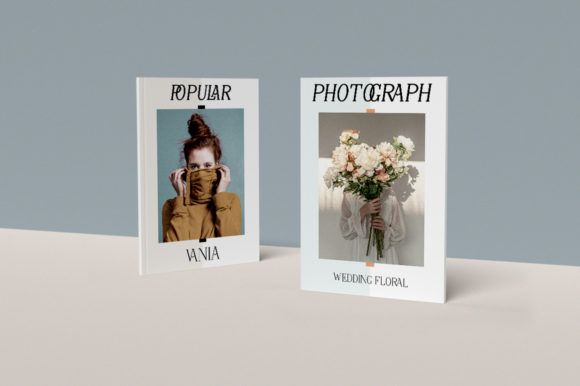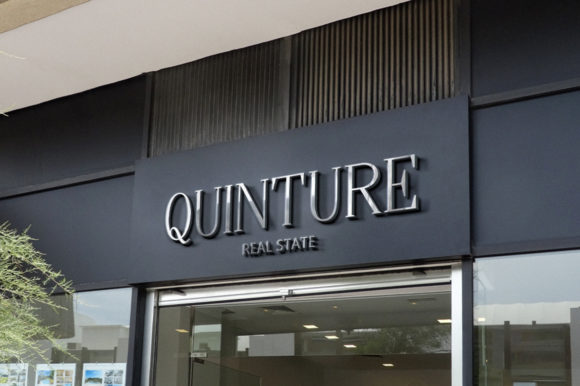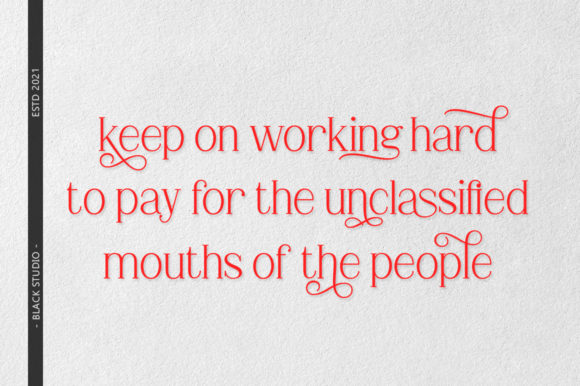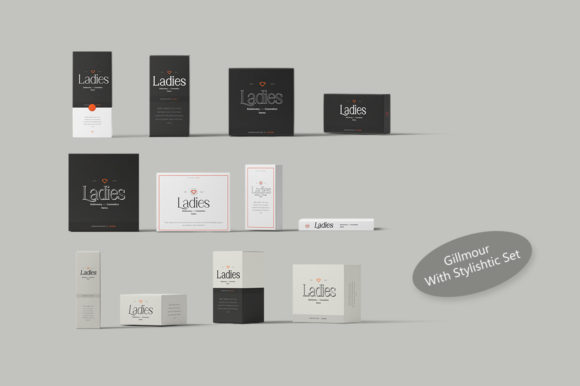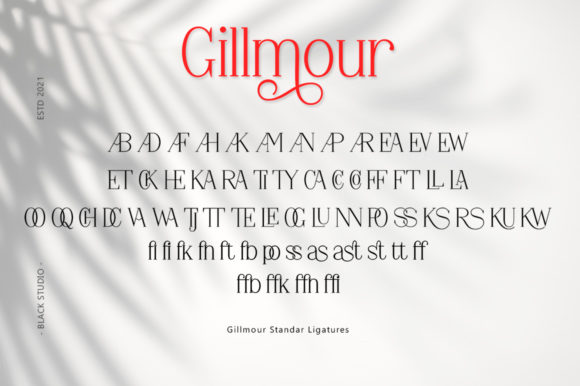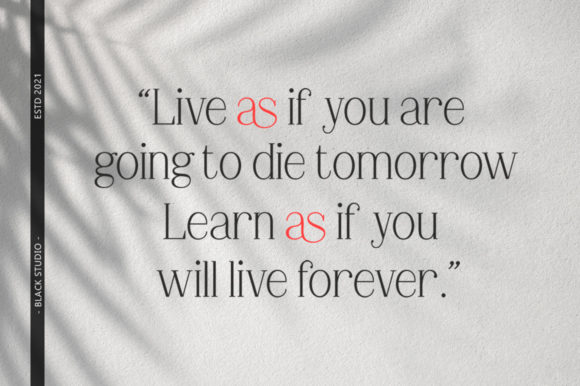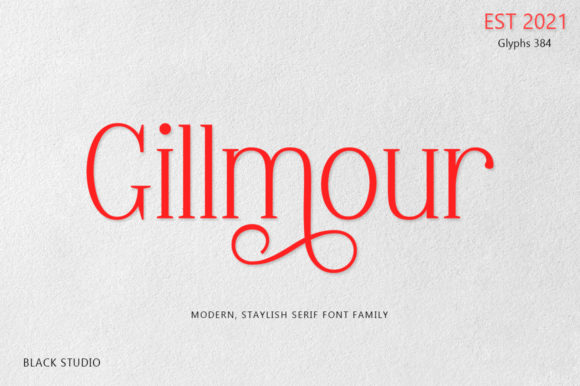
Introducing Gillmour Font: Elevate Your Designs with Elegance and Authenticity
In the world of typography, a well-crafted font can make all the difference in bringing your creative projects to life. If you’re a designer, crafter, or simply someone who appreciates the art of beautiful lettering, you’re in luck. Say hello to Gillmour Font, an elegant and authentic serif font designed to add a touch of sophistication to your work.
The Perfect Balance: Not Too Thin, Not Too Thick
Gillmour Font strikes the perfect balance between being too thin and too thick, making it a versatile choice for a wide range of applications. Whether you’re working on a logo, a brochure, or a website, this font ensures that your text is always legible and visually appealing. Its balanced strokes and carefully crafted letterforms make it an excellent choice for body text, headings, and titles.
Variety and Versatility: The Hallmarks of Gillmour Font
One of the standout features of Gillmour Font is its varied and versatile design. The font comes with a range of weights and styles, allowing you to experiment with different looks and feels to find the perfect fit for your project. Whether you’re aiming for a classic and traditional look or something more modern and edgy, Gillmour Font has got you covered.
Elegance and Authenticity: The Essence of Gillmour Font
Gillmour Font is more than just a font – it’s an expression of elegance and authenticity. Its serif design adds a touch of sophistication and refinement to any project, making it perfect for luxury brands, high-end products, and creative endeavors that demand attention to detail. The font’s authentic feel also makes it an excellent choice for crafts, such as handmade cards, invitations, and DIY projects.
Enhance the Beauty of Your Projects with Gillmour Font
Gillmour Font is designed to enhance the beauty of your projects, not overpower them. Its subtle yet distinctive design ensures that your text is always the focal point, while the font’s elegance and authenticity add an extra layer of sophistication. Whether you’re working on a personal project or a client’s brief, Gillmour Font is the perfect choice for anyone looking to elevate their designs and create something truly special.
Why Choose Gillmour Font?
- Elegant and authentic serif design: Add a touch of sophistication to your projects with Gillmour Font’s classic and refined design.
- Balanced and varied: The font’s balanced strokes and varied styles make it perfect for a wide range of applications.
- Legible and versatile: Gillmour Font is designed to be legible and versatile, making it perfect for body text, headings, and titles.
- Perfect for designers and crafters: Whether you’re a professional designer or a crafty DIY enthusiast, Gillmour Font is the perfect choice for anyone looking to elevate their designs.
Get Creative with Gillmour Font
In conclusion, Gillmour Font is an elegant and authentic serif font designed to enhance the beauty of your projects. With its balanced and varied design, legible and versatile strokes, and elegant and authentic feel, this font is perfect for designers, crafters, and anyone looking to elevate their designs. So why wait? Download Gillmour Font today and start creating something truly special.